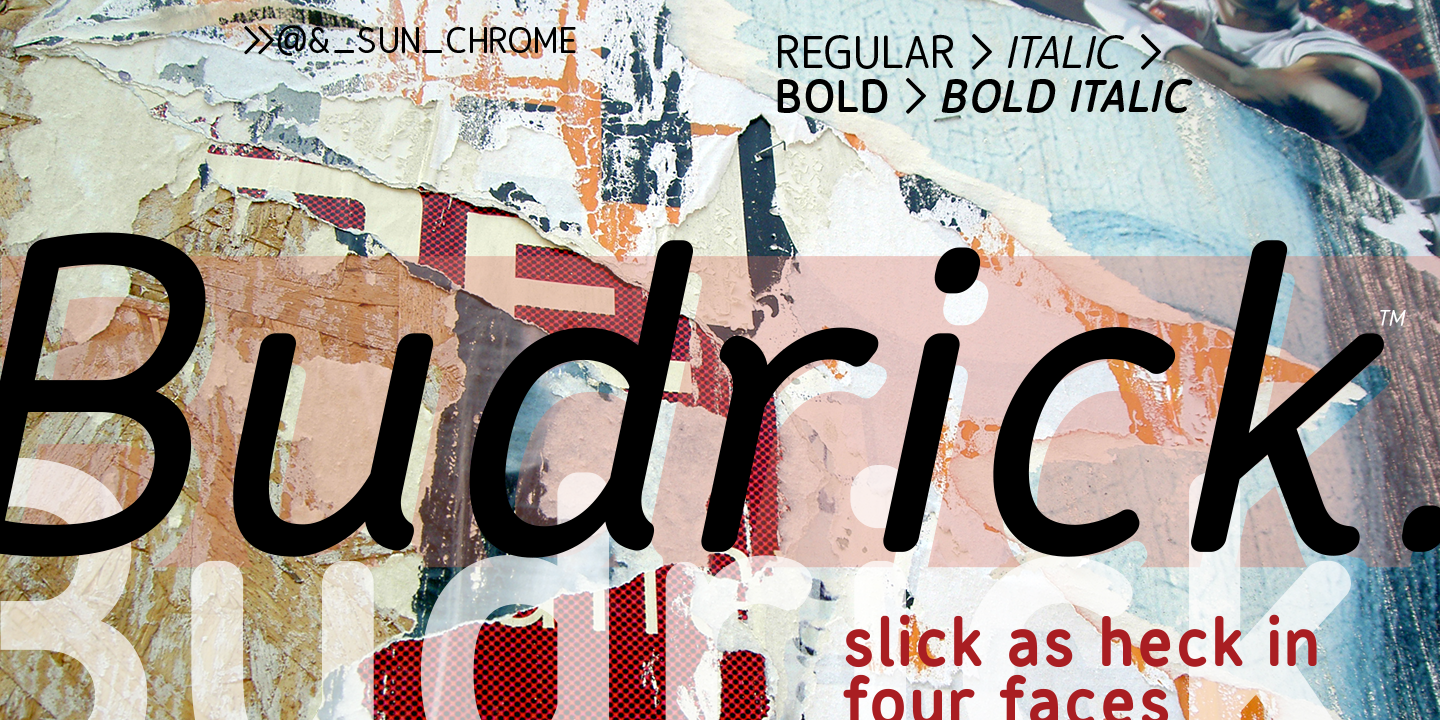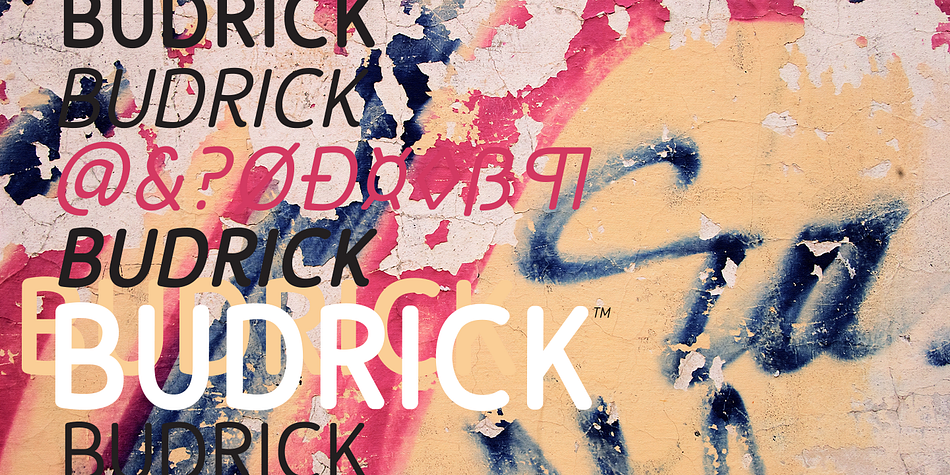
Budrick BB
Designed by Nate Piekos, Budrick BB is a sans serif font family. This typeface has four styles and was published by Blambot.
Budrick BB is a slick, clean body copy font family that’s just a bit rounded. It is available in four weights: Regular, Italic, Bold, and Bold Italic. (And those Italics have some slightly different letter forms than the plain versions!) To top it all off, Budrick BB has a hefty collection of European characters.